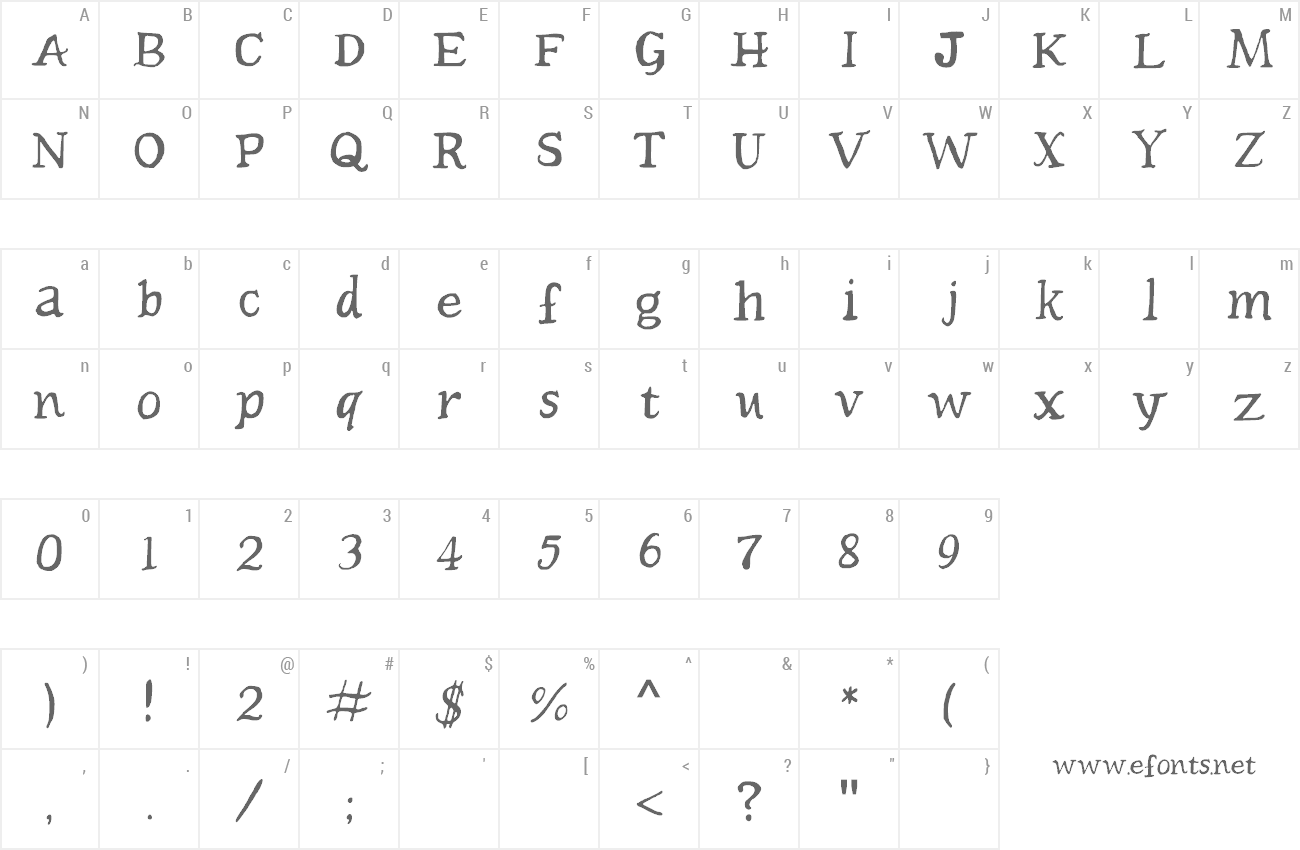
Preview and download Beckler Font. Created by Becka Schuelke in Script Various styles with Free for personal use license.
| Font name: | Beckler |
| Author: | Becka Schuelke |
| Note by Becka Schuelke | |
| Introducing Beckler, the cute-as-a-button contender for classroom projects, holiday banners, and other creative endeavors that aim for highlighting old fashioned craftsmanship and straight up authenticity. |